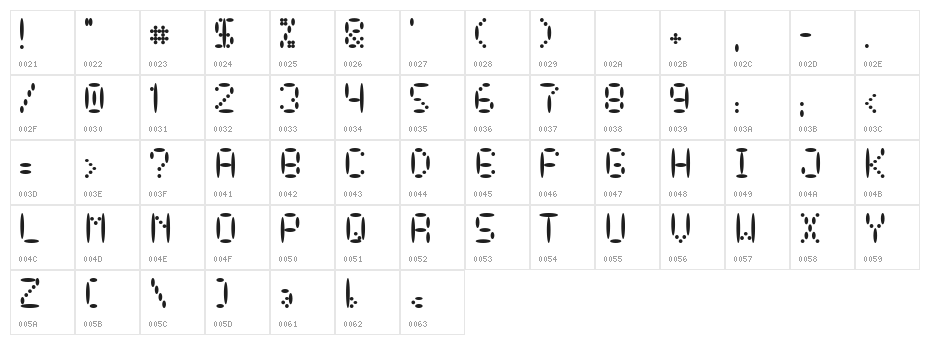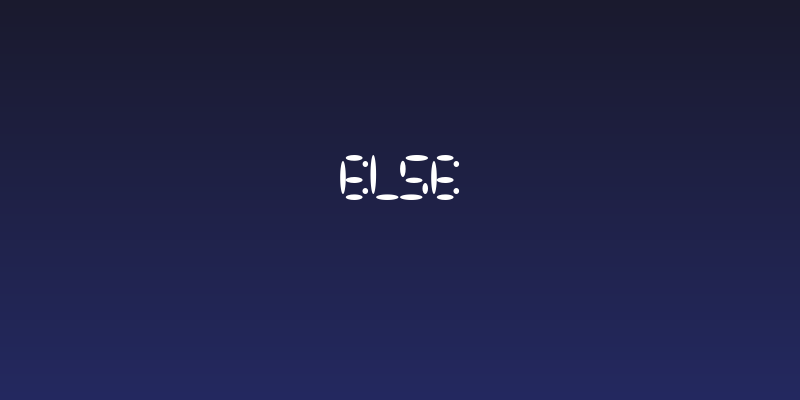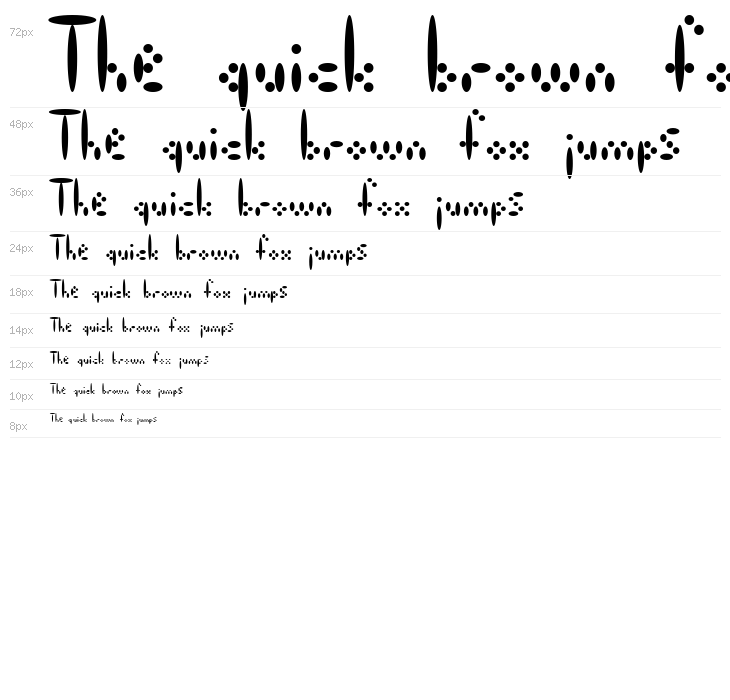
Else Font
Else Description
This font features a highly decorative and unique style, characterized by its use of bold, elongated ovals and dots to form each character. The design is reminiscent of a futuristic or abstract aesthetic, with each letter and number composed of a series of vertical and horizontal ellipses, creating a visually striking pattern. The font maintains a consistent weight throughout, with no variation in stroke thickness, giving it a uniform appearance. The spacing between characters is relatively tight, enhancing the compact and cohesive look. This font is best suited for creative and artistic projects where a bold statement is desired.
| Overall Style | Futuristic, Abstract |
| Use Case | Headlines, Logos, Artistic Displays |
| Proposed Projects | Ideal for posters, album covers, modern art installations, and creative branding projects. |